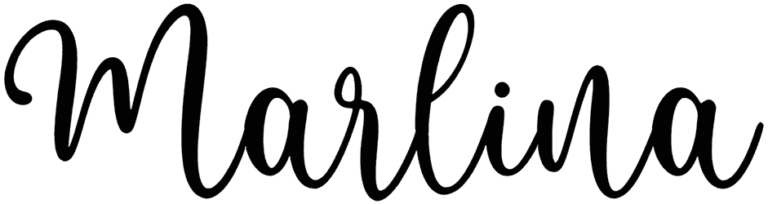
Abalone Smile Font
Have a sweet showcase for your future design with minimal and non-bulky words. This handwritten font, which is named Abalone Smile, consists of a casual and soft style with an appealing vibe. Supporting full characters will provide you with a chance to use this cartoon font for various designs from posters to branding.